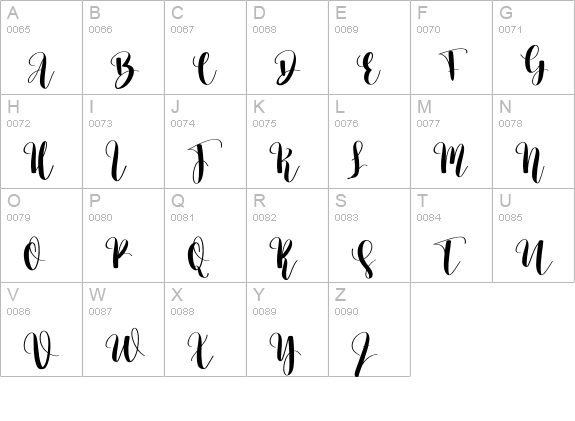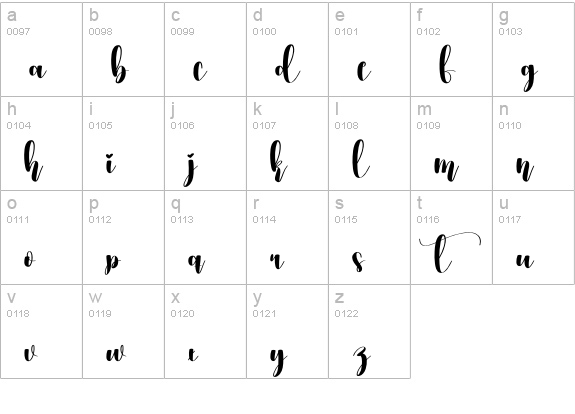
Rainbow December Font Details
Rainbow December font is a whimsical and playful typeface that exudes joy and creativity. With its colorful and vibrant design, this font is perfect for adding a fun and festive touch to your projects. Whether you're working on invitations, posters, or social media graphics, Rainbow December font will bring a pop of color and cheer to your designs.